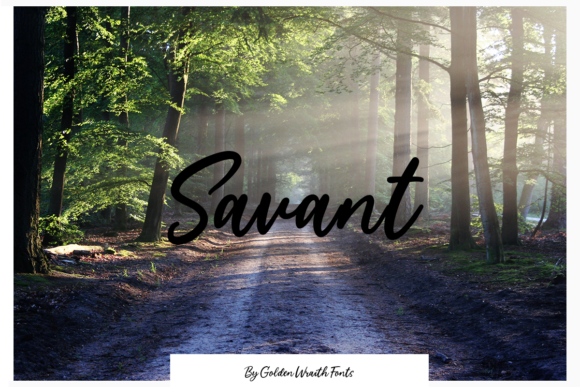
Welcome to the world of Savant, a script font that dances with grace and confidence. Crafted by renowned artist Golden Wraith, this masterpiece is not just a font; it's an artistic journey that will captivate your designs. If you're looking for a font to imbue your projects with a touch of elegance, look no further. Savant stands ready to elevate your creative vision.
Enter the realm of Savant, where letters flow with effortless beauty, connecting your words with an undeniable charm. This script font is a true chameleon, adapting seamlessly to any project, be it a heartfelt greeting card, an eye-catching social media post, or an unforgettable logo that will leave a lasting impression. Its diverse range of alternates and ligatures grants you the freedom to explore endless possibilities, turning your designs into stunning works of art.
Savant is more than just a font; it's a statement of style and sophistication. Its meticulously crafted glyphs dance across the page, exuding an air of confidence and charisma. Whether you're crafting a heartfelt invitation, designing a captivating poster, or creating a website that demands attention, Savant will elevate your words with an undeniable allure.
As the New Year approaches, embrace the spirit of renewal and transformation with Savant. Let its graceful curves and enchanting ligatures usher in a new era of creativity. From heartfelt holiday cards to stunning party invitations, Savant will add a touch of magic to your festive designs. Its versatility knows no bounds, making it the perfect companion for any project that calls for a touch of elegance and flair.
So, embark on this artistic journey with Savant, the script font that will redefine your creative horizons. Its versatility, charm, and timeless beauty will elevate your designs to new heights. Let Savant be your guide as you explore the vast landscapes of creativity, leaving a trail of enchantment wherever you go.